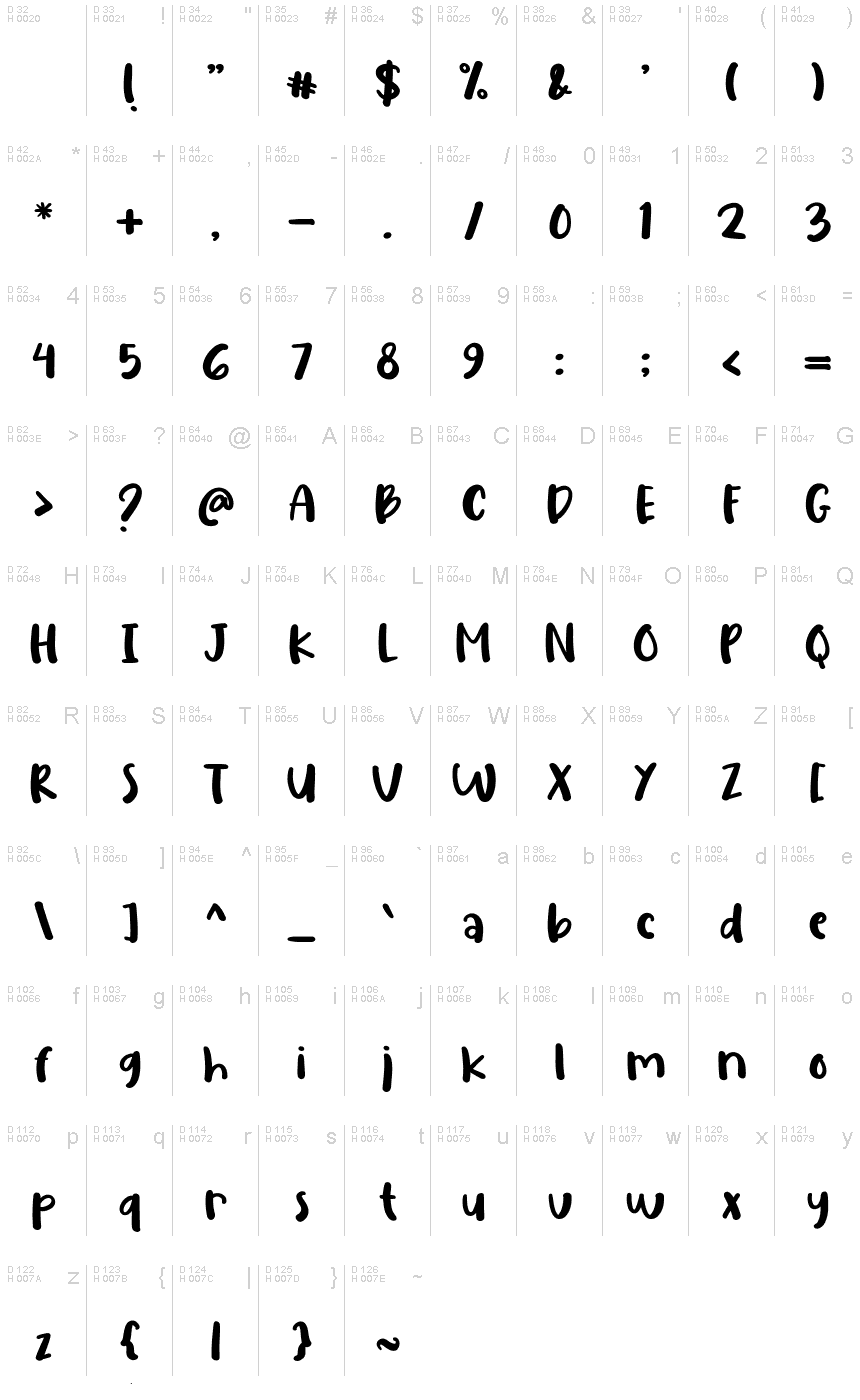
Sunday Vibes
Sunday Vibes, the playful display font designed by Erlina Graphic, is sure to add a whimsical touch to any project. With its cartoon-style design and semi-bold weight, this font is perfect for creating eye-catching headlines, titles, and logos that command attention. Whether you're designing a children's book cover or a lively event poster, Sunday Vibes is versatile enough to suit any creative endeavor. Its unique personality and fun-loving vibe make it ideal for projects that aim to capture the spirit of adventure and joy. Let Sunday Vibes bring some sunshine into your designs today!